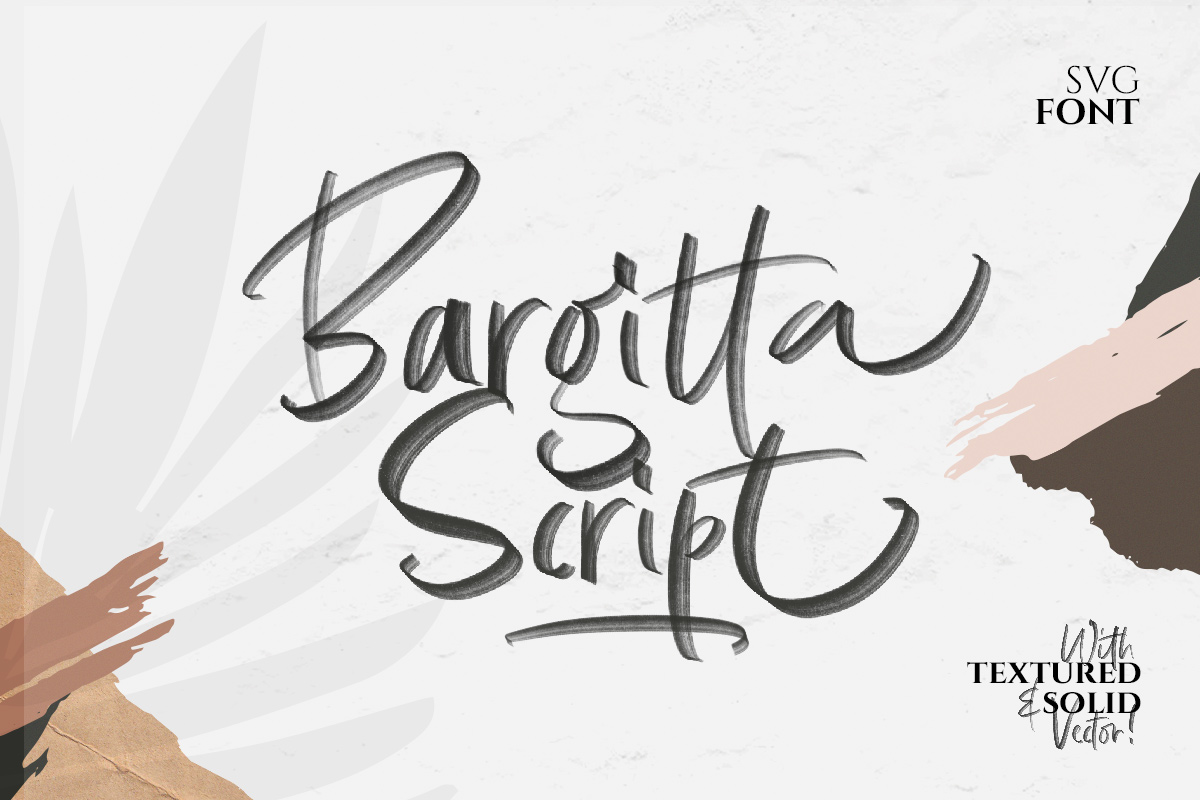
Bargitta Font
The Bargitta Font is perfect for chic fashion boutiques, sophisticated lifestyle magazines, elegant personal branding, luxury spa services, contemporary beauty salons, refined social media graphics, upscale event planning, and graceful feminine businesses. This stylish typeface brings effortless sophistication and modern feminine elegance to any design project requiring contemporary charm and polished refinement.
What makes the Bargitta Font so exciting is its perfect balance of modern sophistication with approachable femininity through letterforms that exude confidence and grace without appearing overly formal or intimidating. The font features clean lines with subtle curves, refined proportions, and contemporary details that create an immediate impression of stylish competence and fashionable intelligence.
The Bargitta Font family includes thin, light, regular, medium, bold, and black weights, each available in upright and italic styles, plus stylistic alternates and contemporary ornaments, providing designers with versatile tools for creating cohesive modern brand experiences and sophisticated typographic systems that appeal to style-conscious audiences.
Elevate your style quotient with the Bargitta Font Free Download. This contemporary typeface has become beloved among fashion-forward brands, lifestyle influencers, and modern feminine businesses who need typography that reflects current style trends while maintaining professional credibility. The font features comprehensive character support including multilingual capabilities, fashion symbols, and contemporary punctuation optimized for lifestyle applications.
Whether you're developing brand identity for fashion retailers, creating content for lifestyle publications, or designing materials for modern service businesses, this font delivers sophisticated appeal. The carefully balanced letterforms ensure excellent readability across all platforms while conveying the stylish confidence and contemporary elegance that resonates with fashion-conscious consumers and style-aware audiences.
Style professionals appreciate the font's ability to communicate modern femininity and fashion awareness without appearing trendy or temporary. The sophisticated design elements create lasting visual appeal that helps brands establish strong connections with audiences who appreciate contemporary style, refined taste, and the confidence that comes from looking effortlessly polished.
The Bargitta Font performs excellently in both digital and print applications, adapting seamlessly to various media while maintaining its core message of sophisticated style. The font's contemporary heritage makes it particularly effective for brands targeting style-conscious millennials and fashion-aware consumers who value both aesthetics and authenticity.